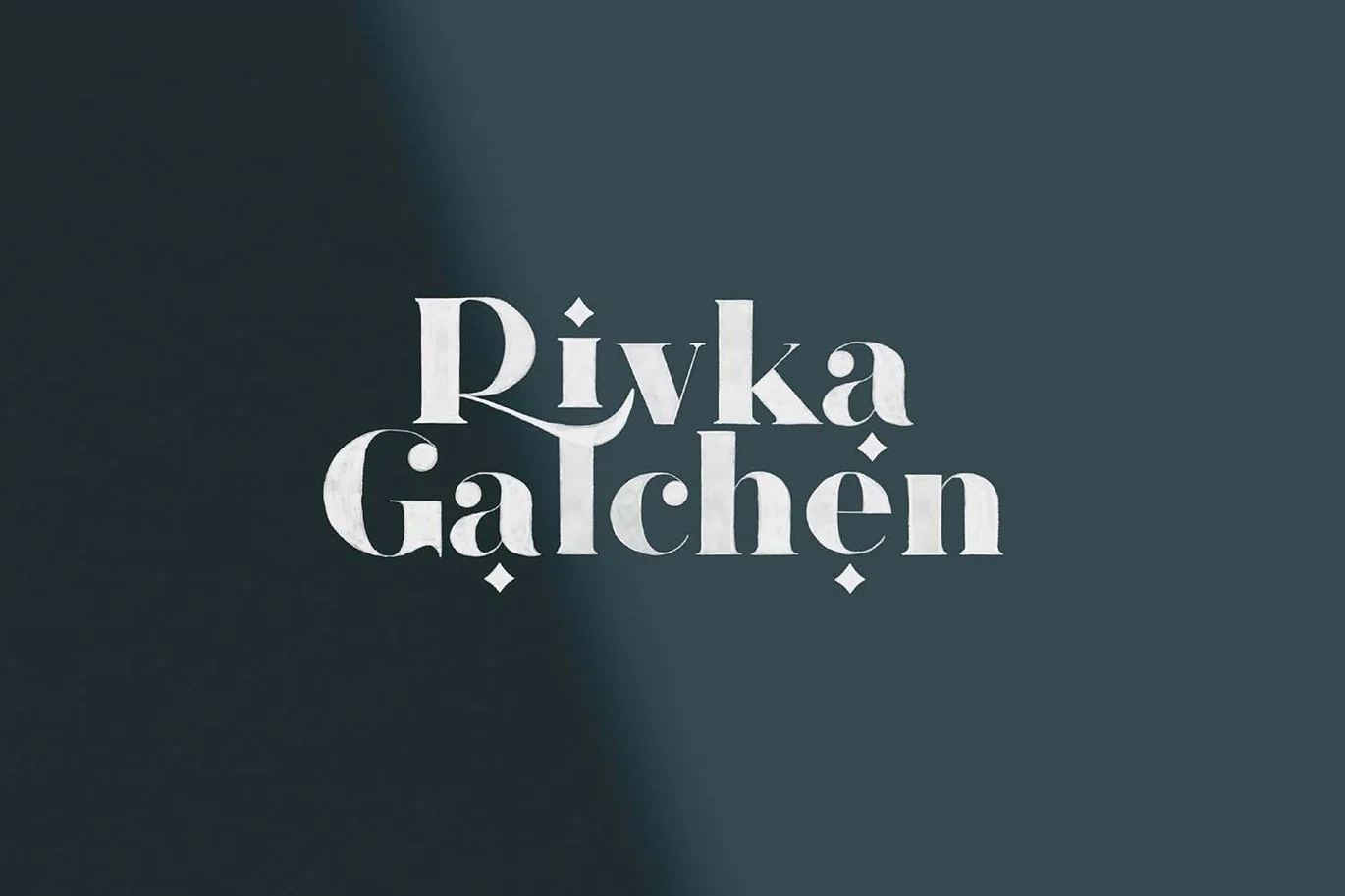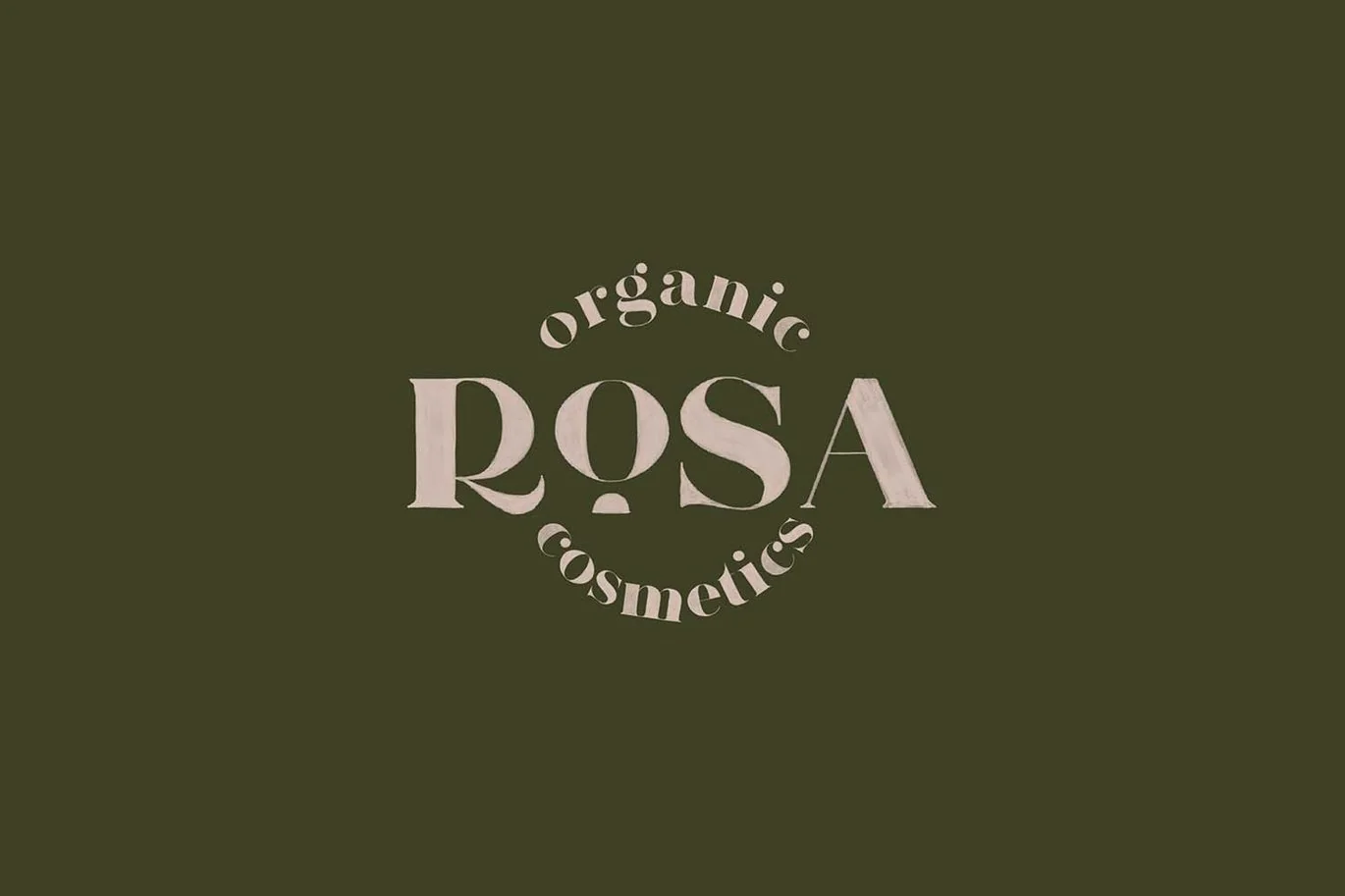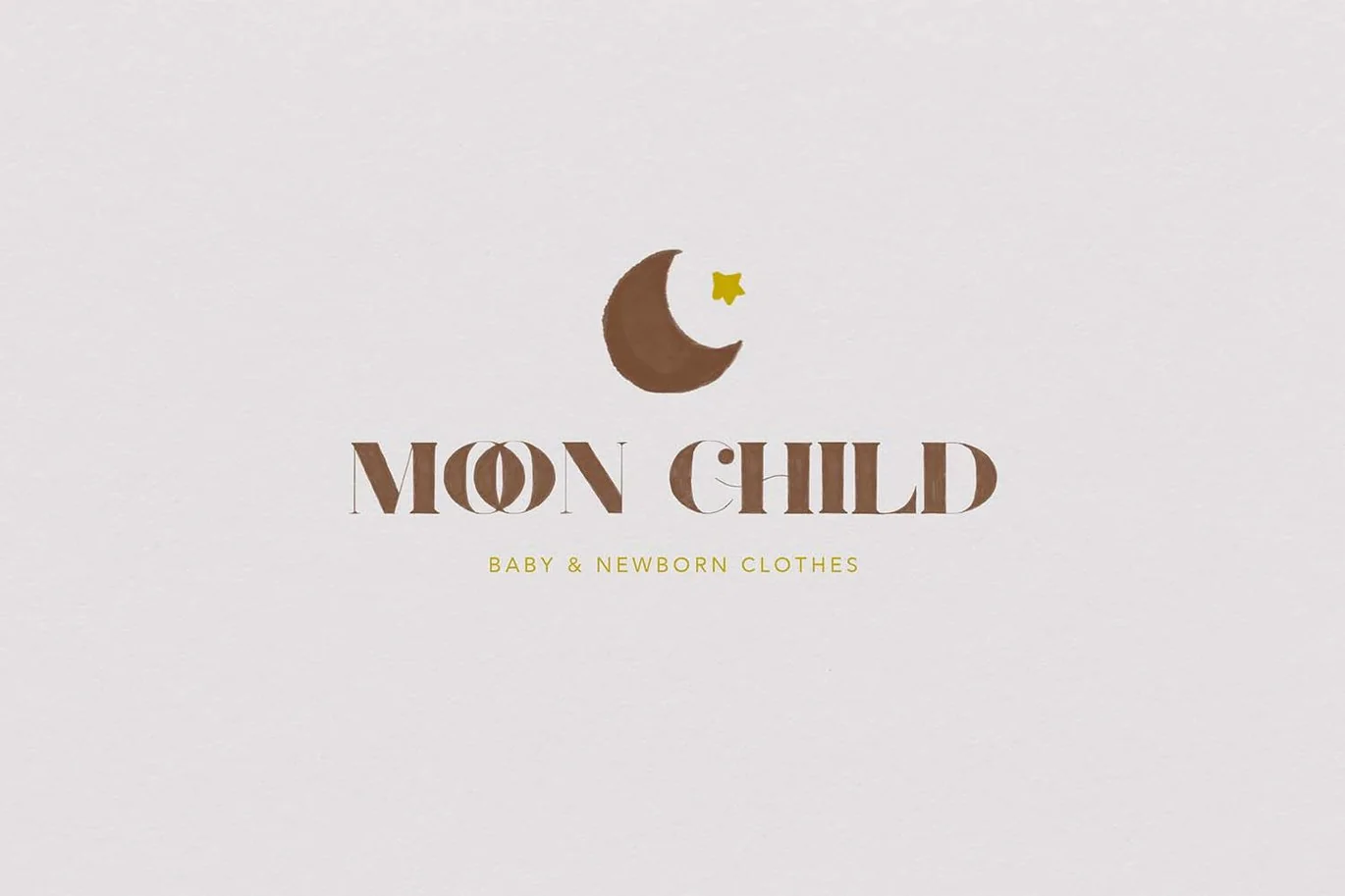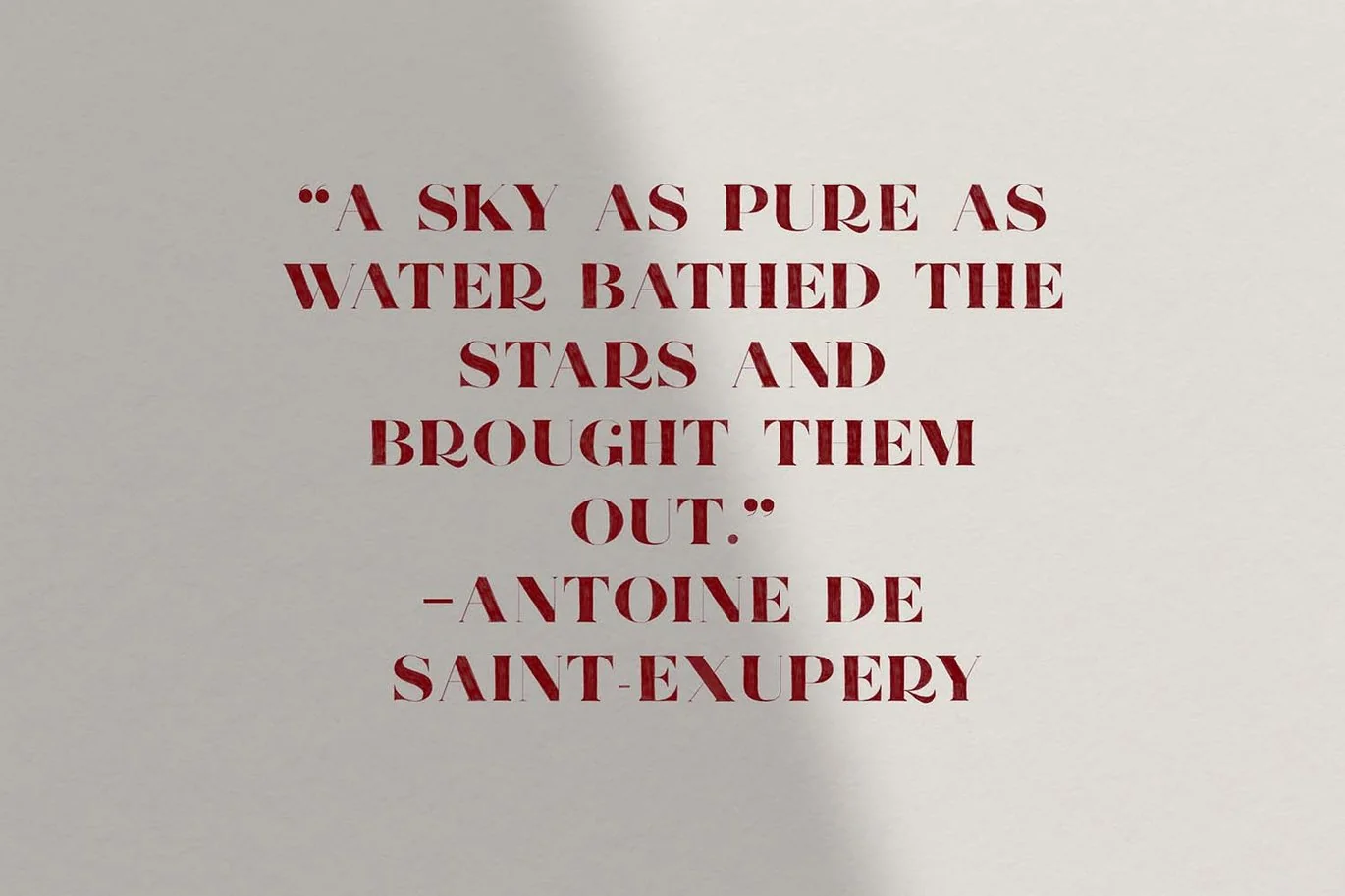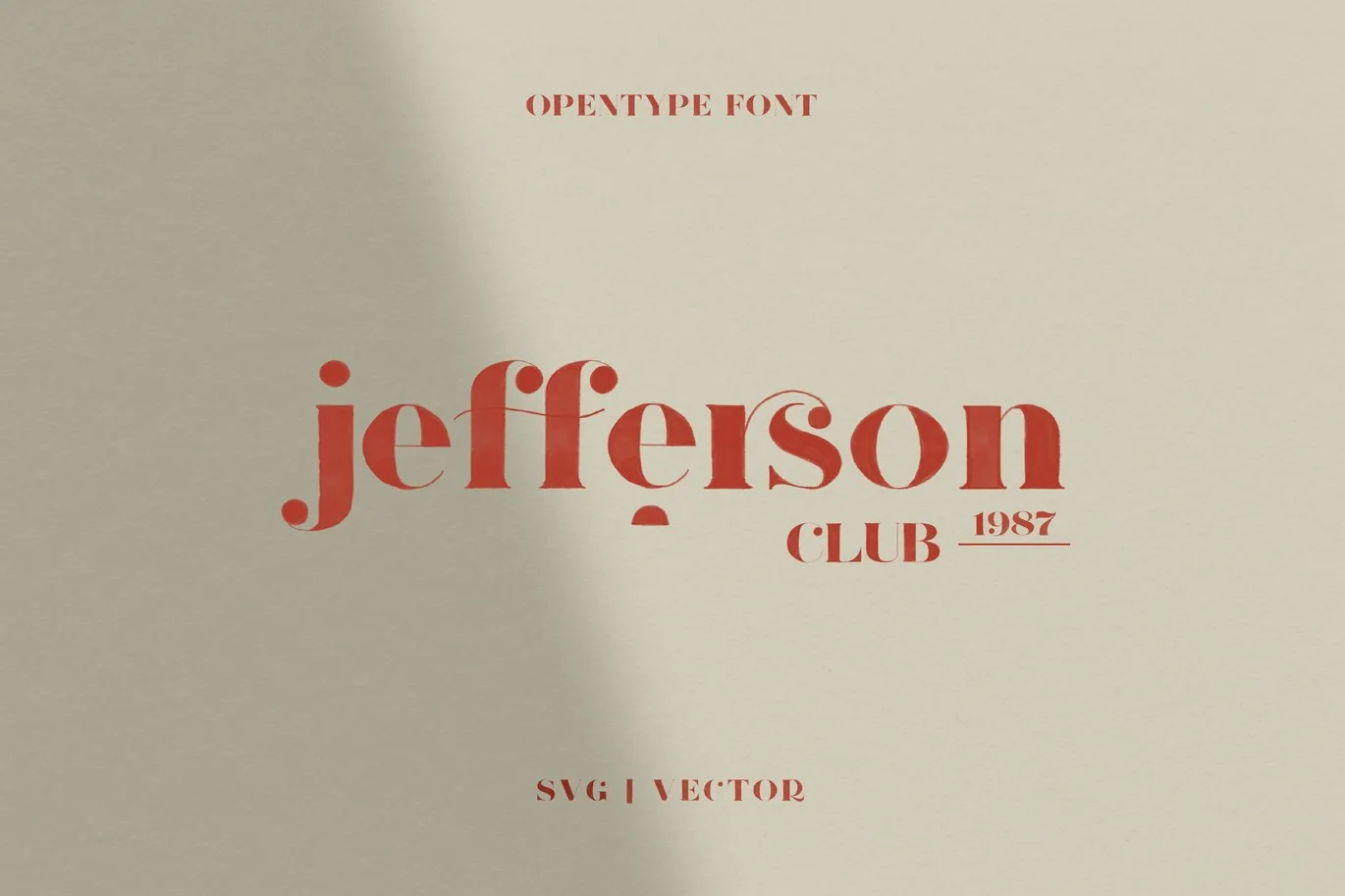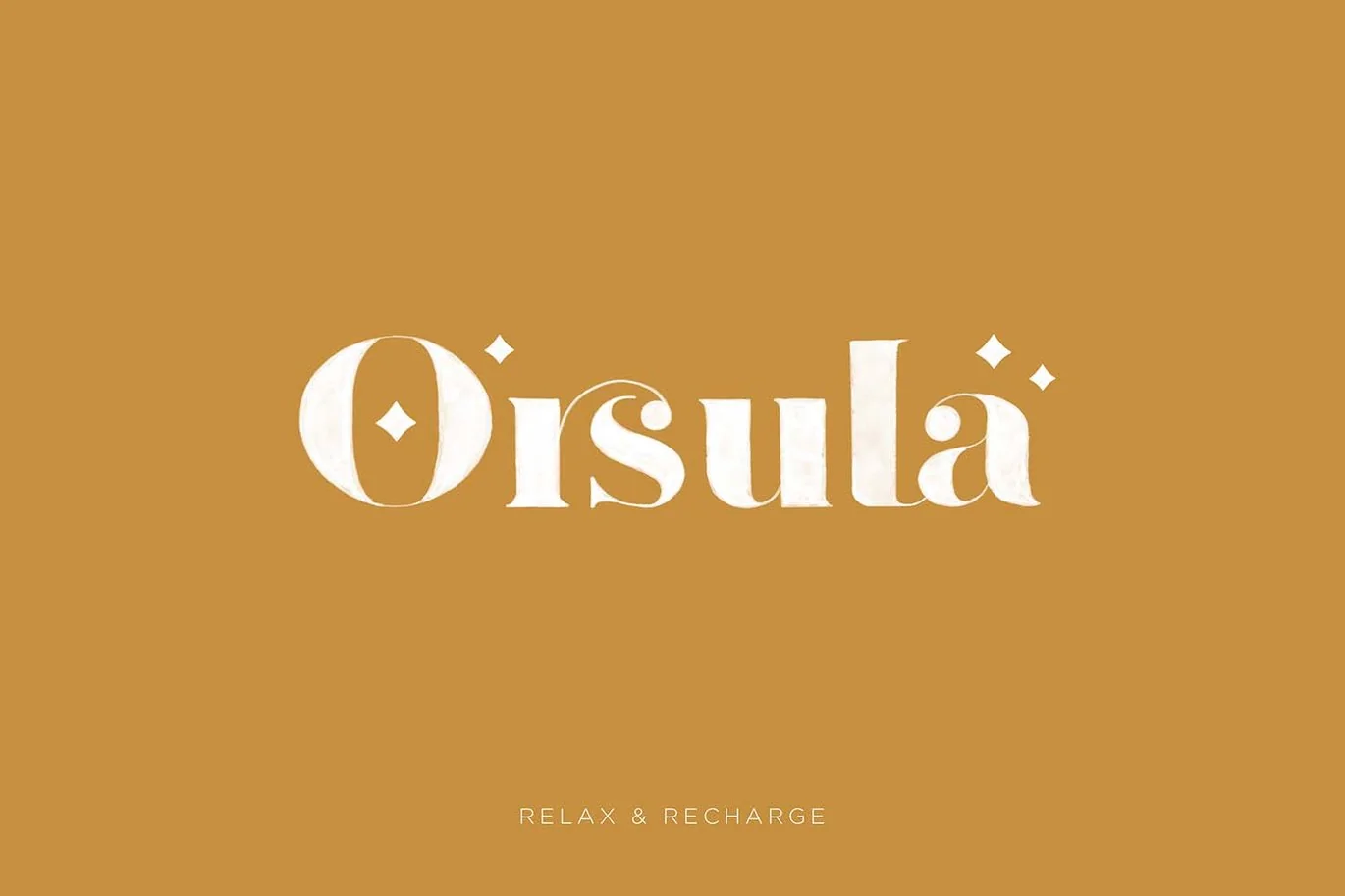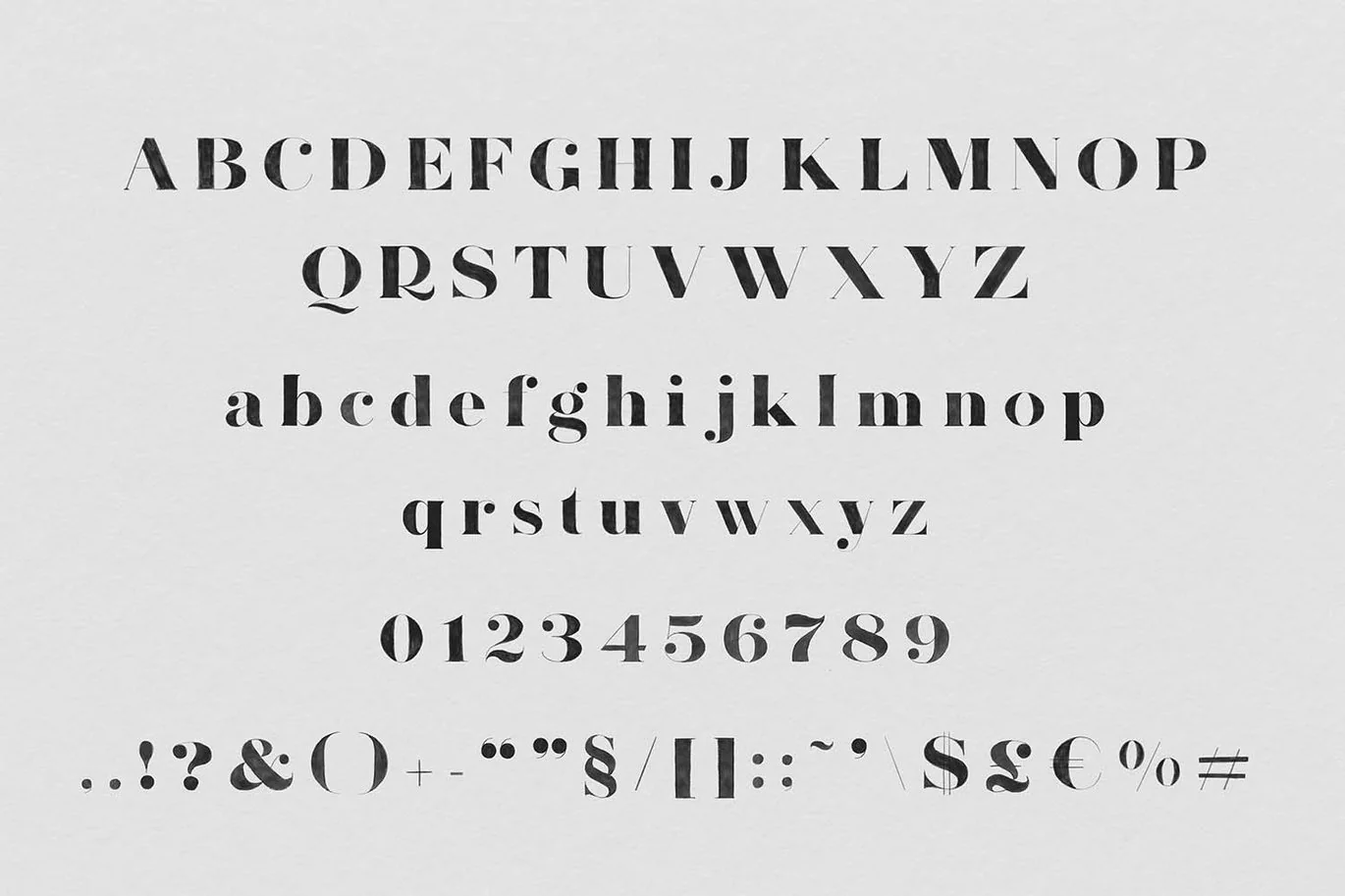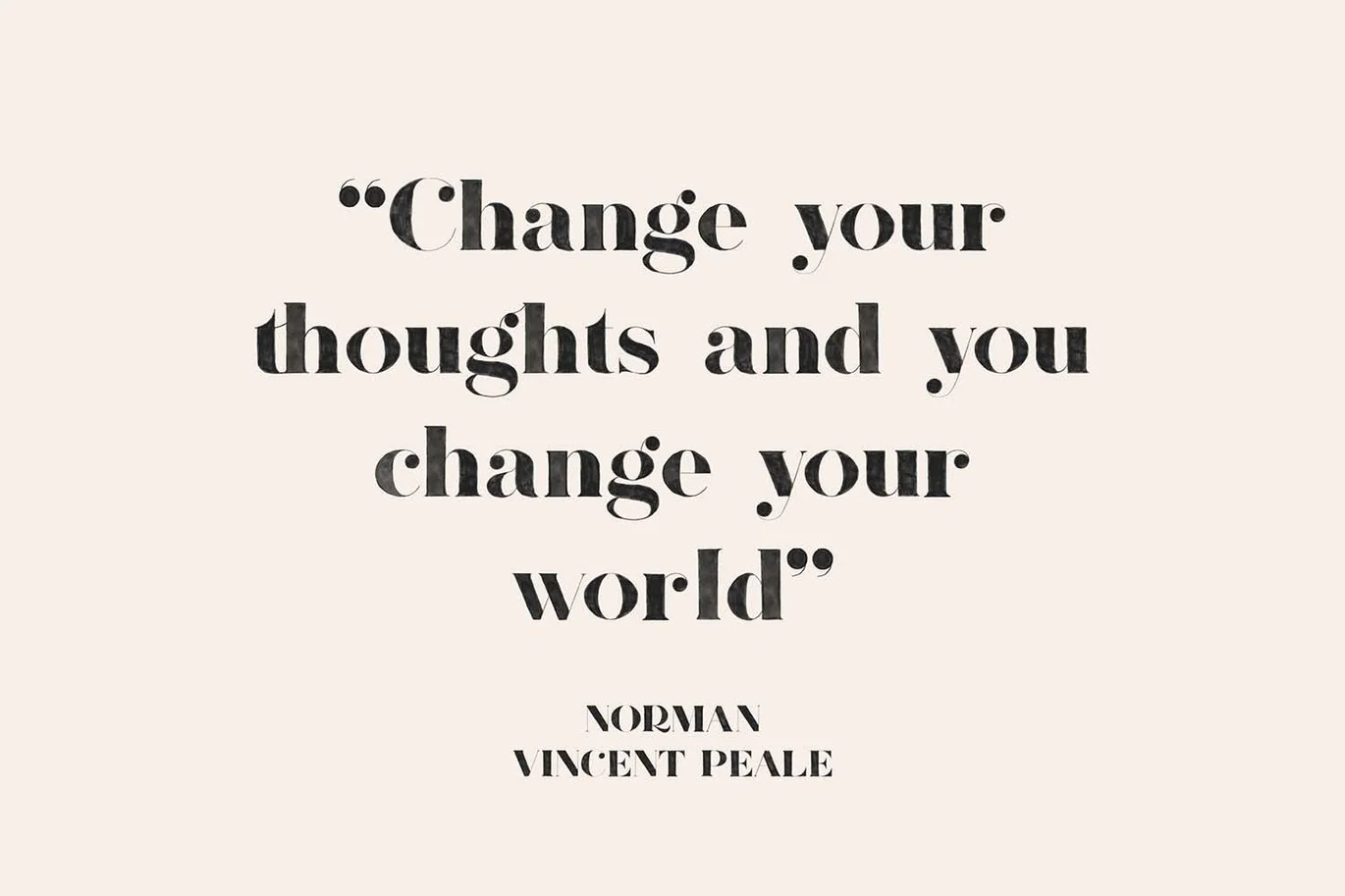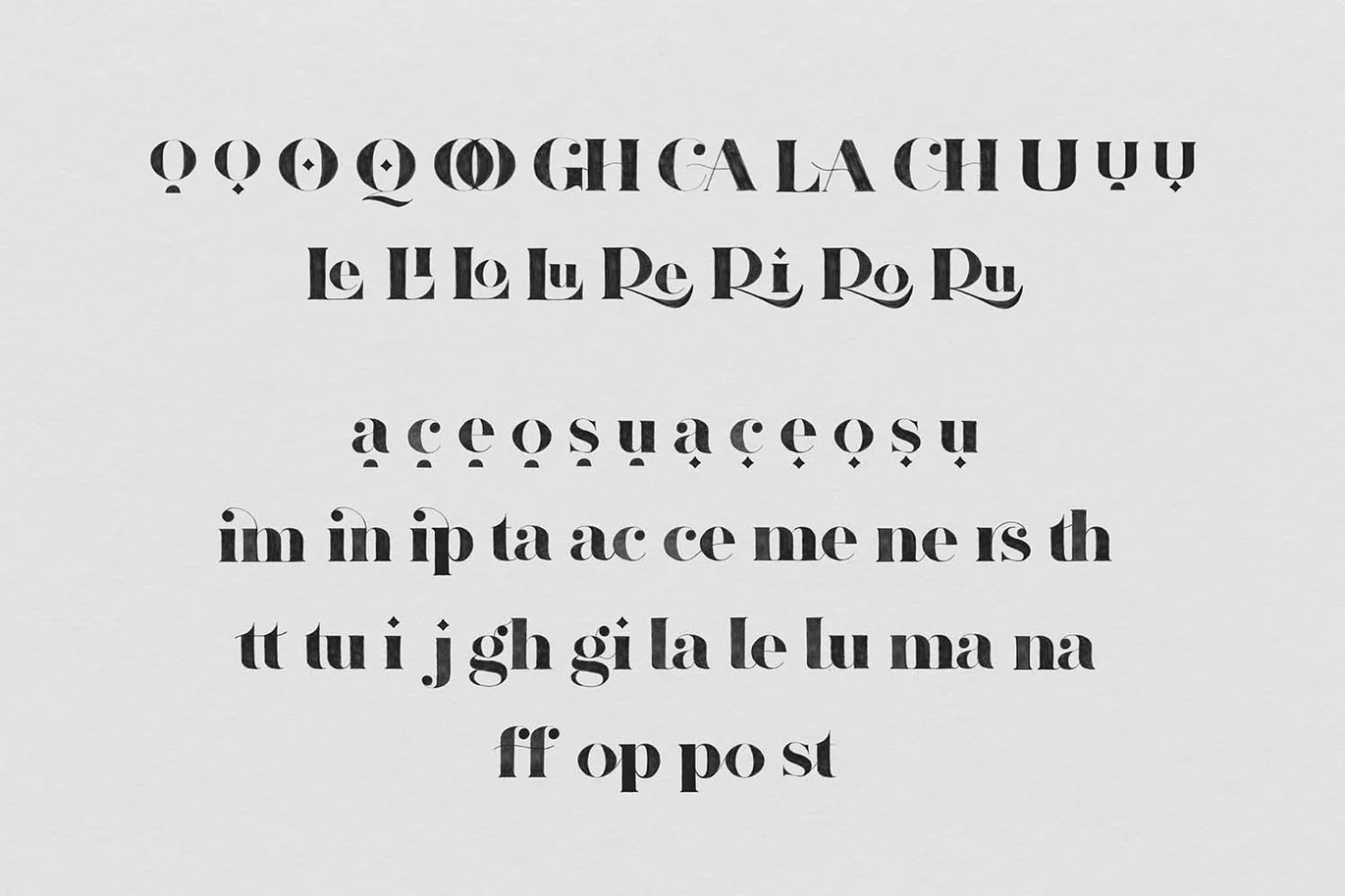
Jefferson is a display soft serif font with ligatures. Perfect for logos, cards, posters and other designs.
Jefferson Opentype SVG font (+ solid vector version) that contains upper and lowercase characters, number 0-9 and a range of punctuation and symbols + ligatures;